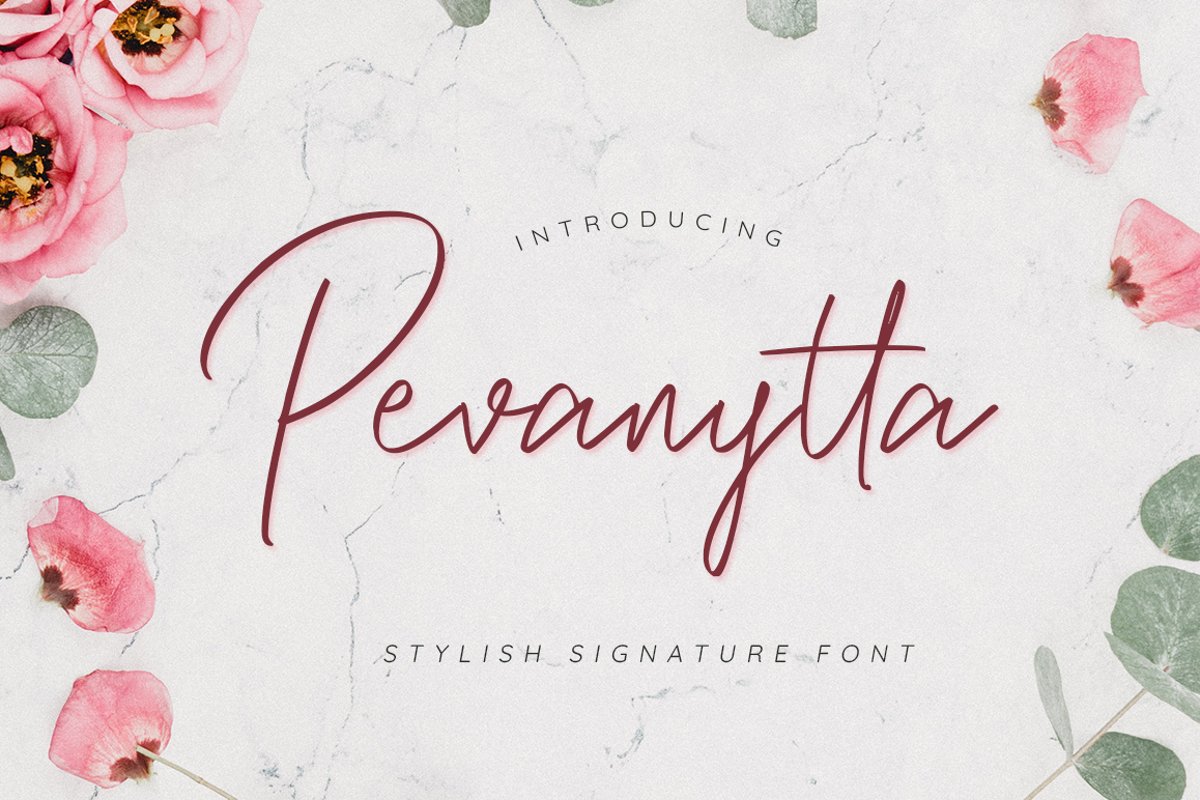
Pevanytta Beauty Script
Pevanytta
This is our newest product called Pevanytta. Pevanytta is a sweet and simple script with a romantic feel. Fall in love with its raw authenticity!
This font is suitable for use on business cards, weddings, t-shirt designs, logos, magazines, quotes, fashion, watermarks, invitations, signatures.